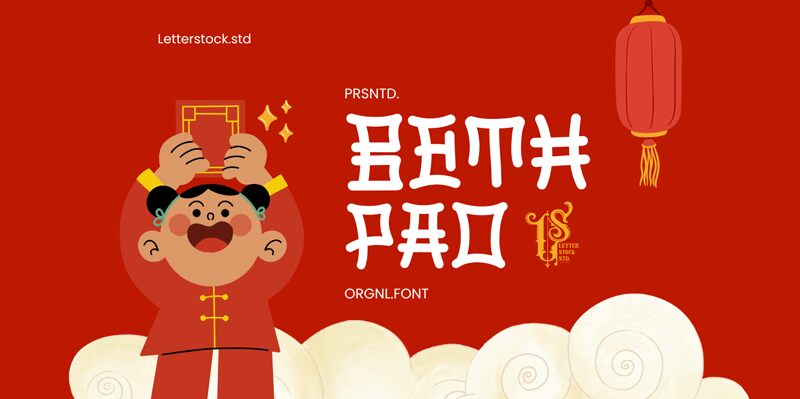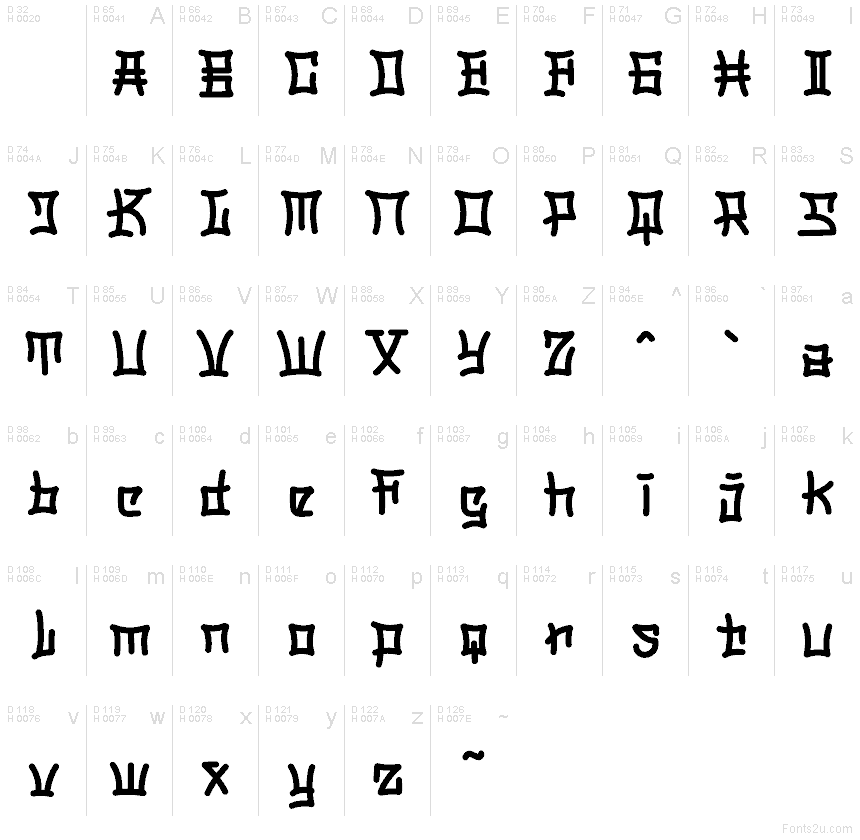
Beth pao-demo
Beth Pao font by LetterStock Std is a free decorative foreign typeface with a playful, Chinese-inspired flair. Its chunky strokes look like they were painted with a thick, inky brush, then squared off into sturdy blocks, giving each letter a slightly irregular, hand-drawn feel. The rhythm is tight and compact, so words form bold, unified shapes that instantly signal an East Asian theme without feeling too rigid or formal.
Using Beth Pao, you can give instant character to takeout menus, themed restaurant branding, game titles, event posters, party invitations, and bold signage. This free font shines at larger sizes where its quirky curves and knotted corners can really be seen; keep supporting text in a clean sans serif so Beth Pao can handle the headline.